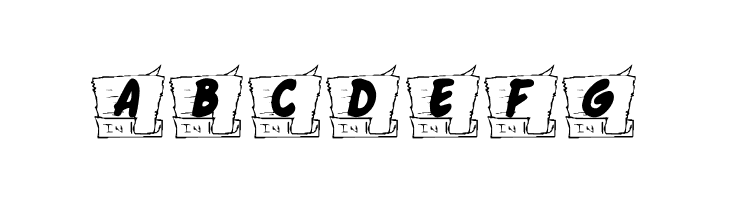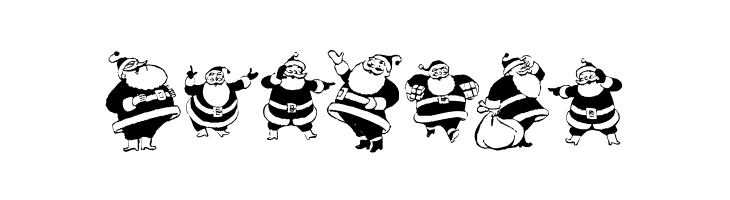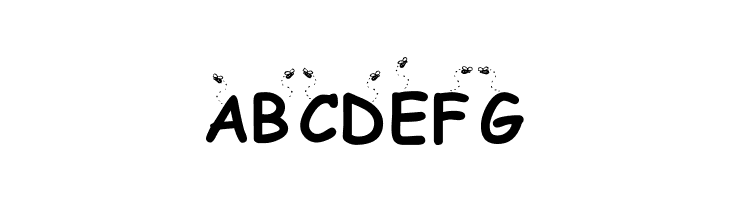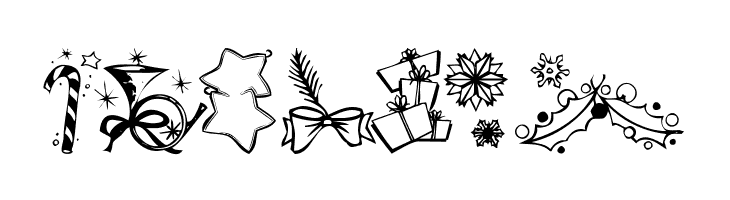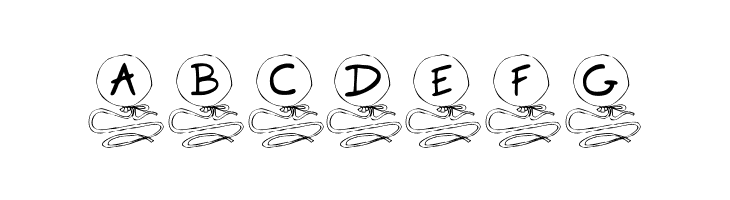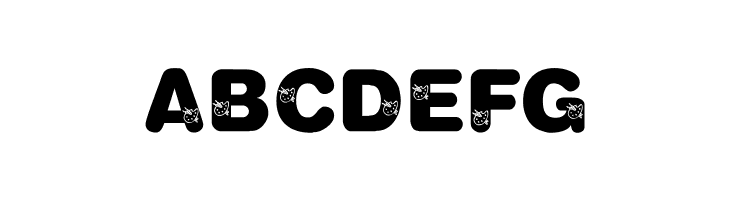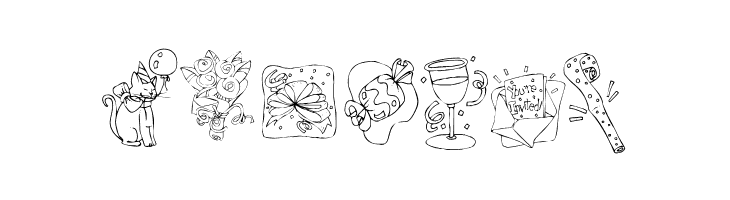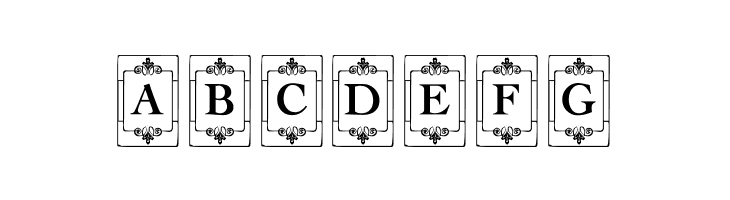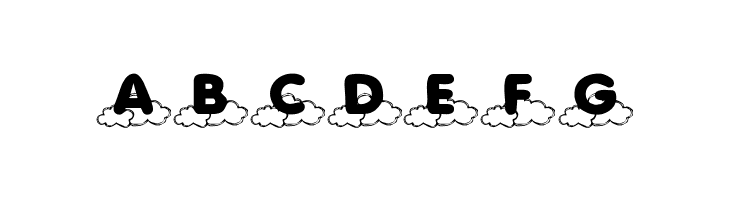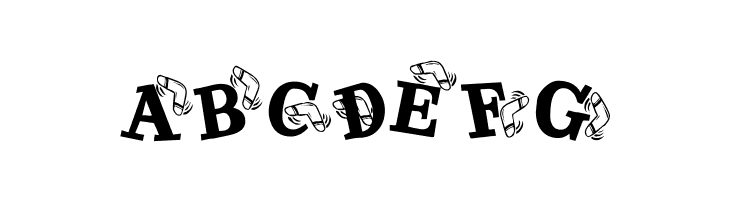
A playful, decorative font with bold letters in irregularly shaped boxes.
A festive decorative font with playful Santa illustrations.
A playful, hand-drawn font with buzzing bee illustrations and rounded, bold letters.
A decorative font with Christmas-themed icons for each character.
A playful font with characters inside balloon shapes, perfect for festive designs.
A bold, decorative font with whimsical designs on each character.
A decorative dingbat font with playful, festive icons for celebrations.
An ornate, decorative font with bold uppercase letters framed by floral motifs.
A whimsical, cloud-themed font with bold, rounded characters.
A decorative font with Christmas-themed icons in a circular motif.
A playful, cartoon-like font with bold, dynamic letters and whimsical details.
A decorative font with camping-themed icons.
The image contains decorative illustrations, not a valid font.
A decorative font with heart and floral motifs, ideal for romantic designs.
A sports-themed dingbat font featuring playful illustrations of various athletic activities.
A playful, cartoonish font filled with 'HA' text and a 3D shadow effect.
Whimsical baby-themed dingbat font with hand-drawn illustrations.
A decorative font with letters inside barbecue grills, perfect for themed designs.
A playful dingbat font with whimsical Christmas-themed illustrations.
A decorative font with Christmas-themed illustrations for festive designs.
A bold, playful font with decorative antler-like elements on each letter.
A decorative font with holiday-themed icons for various celebrations.
Cartoonish Halloween-themed dingbat illustrations in a playful style.
A playful font with characters enclosed in teabag shapes, offering a whimsical and decorative style.
A decorative font with characters emerging from champagne bottles, perfect for festive designs.
A whimsical, love-themed decorative font with playful illustrations.
A decorative font with wedding-themed illustrations instead of letters.
A playful, candy-themed decorative font with bold, blocky letters and shadow effects.
A decorative font with uppercase letters inside tree silhouettes.
A collection of hunting-themed illustrations replacing traditional characters.
A symbol font with Hanukkah and Jewish holiday icons.
A playful, rounded font with smiling face motifs in each character.
A bold, Western-themed font with cowboy hats on each letter.
A playful, hand-drawn font with characters enclosed in doodle-like frames.
A decorative font with heart-themed symbols perfect for Valentine's designs.